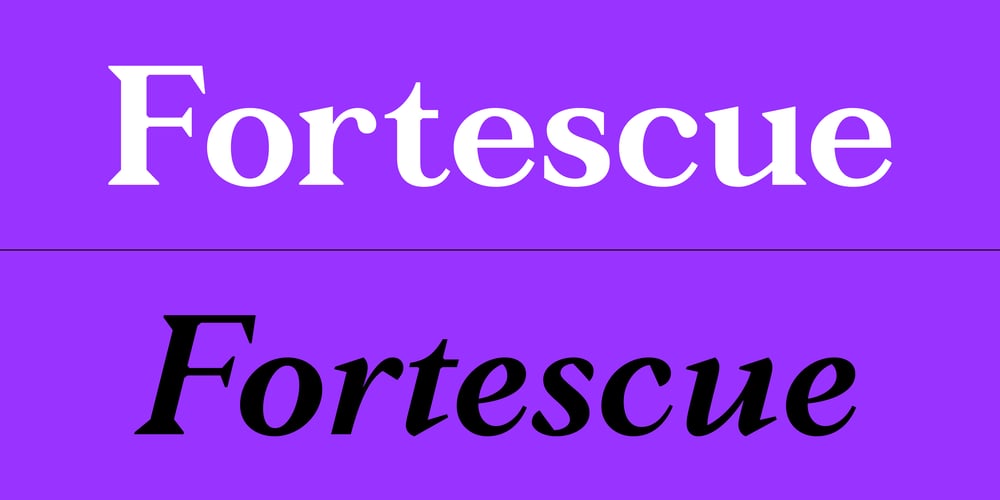
Fortescue Font Family was designed by Colophon Foundry and published by Colophon Foundry. Fortescue contains 24 styles and family package options. Originally drawn in 2009 for artist Jake Spicer as part of a small website and branding project over a period of nine months, Fortescue was initially commercially released in December 2009. The name ‘Fortescue’ derives from a dwelling in Sidmouth, Devon (UK) where the artist began his career.Over the years Fortescue has been used in a variety of settings and applications, and has been modified as a bespoke variant for GQ Magazine (Germany). As part of our larger work to re-master and extend our full commercial library (from 2017 onwards), the Fortescue family has been extended, refreshed and remastered into further weights, styles, language support and OpenType features.Fortescue was updated in 2019 to span three subfamilies, each with varying optical sizes: a Text variant for text and running copy usage, where the contrast between stroke width is at its lowest; a Display for larger usage cases, where the stroke width is at its highest and lastly a Median, that sits between Text and Display.